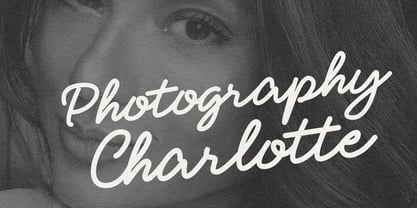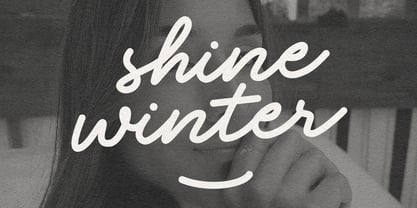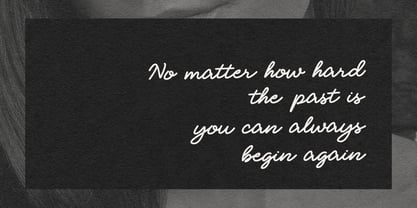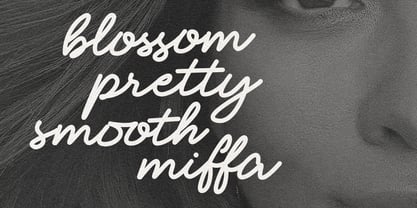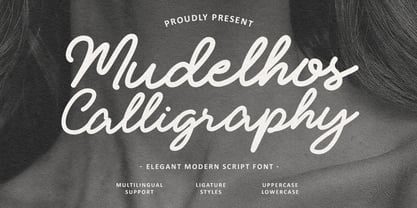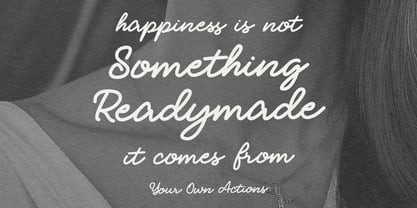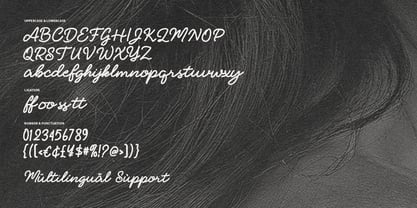
MC Mudelhos
by Maulana Creative
The MC Mudelhos Font Family was designed by Gilang Maulana and published by Maulana Creative. MC Mudelhos contains 1 styles. More about this family
Mudelhos is a sophisticated modern calligraphy script font that blends timeless elegance with a contemporary feel. Characterized by its fluid, hand-drawn strokes and organic rhythm, this font brings a personal and artistic touch to any creative project. It features a full set of uppercase and lowercase letters, numerals, and punctuations, along with specialized ligature styles that create a seamless, natural flow between characters. Perfect for high-end branding, wedding invitations, photography watermarks, social media quotes, and editorial designs, Mudelhos offers multilingual support to ensure your message reaches a global audience. Whether you are designing a chic logo or a heartfelt greeting card, this font provides the perfect balance of luxury and readability.
Designers: Gilang Maulana
Foundry: Maulana Creative